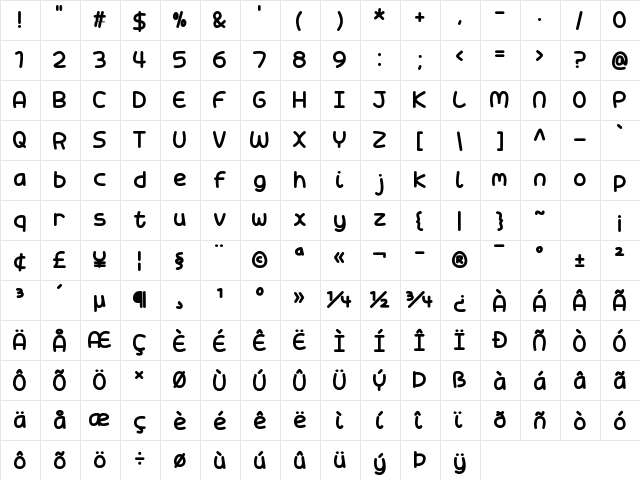
Candy Town Regular
Design Context for Candy Town Typeface
Candy Town takes a measured approach to typography — its balanced proportions and neutral character make it a reliable workhorse for both digital and print work.